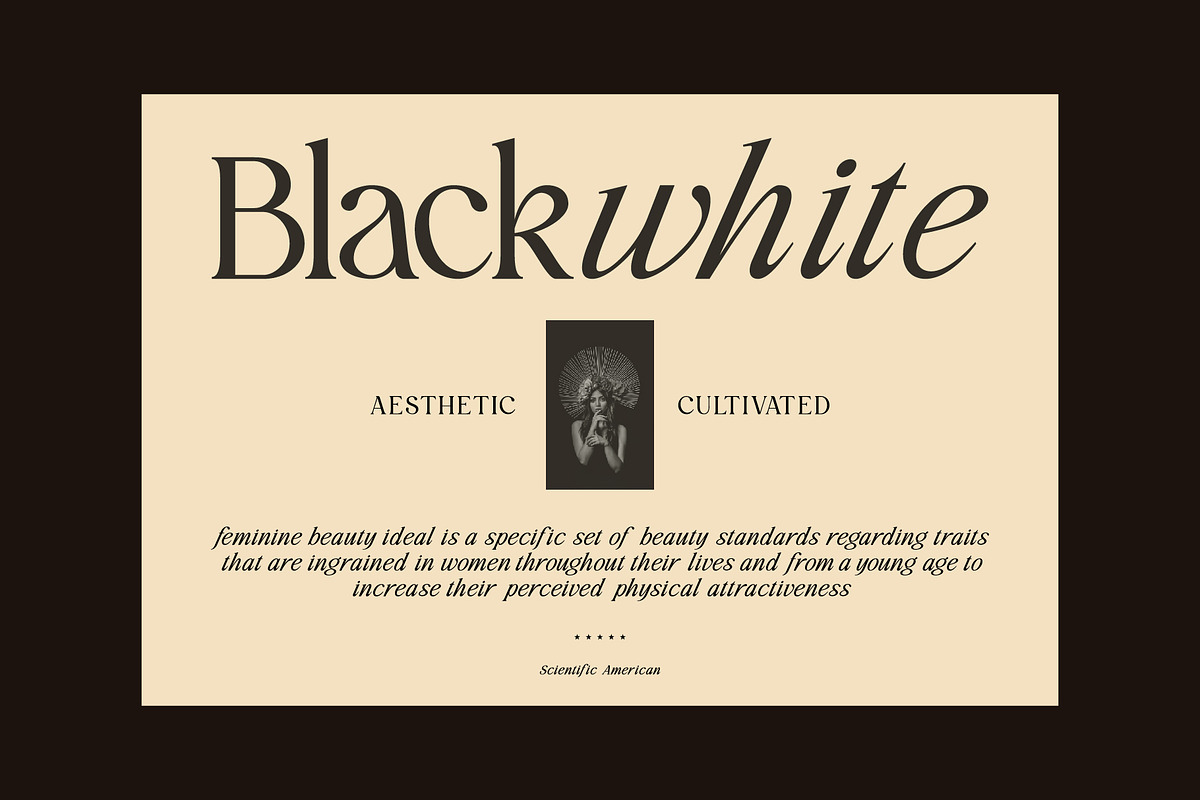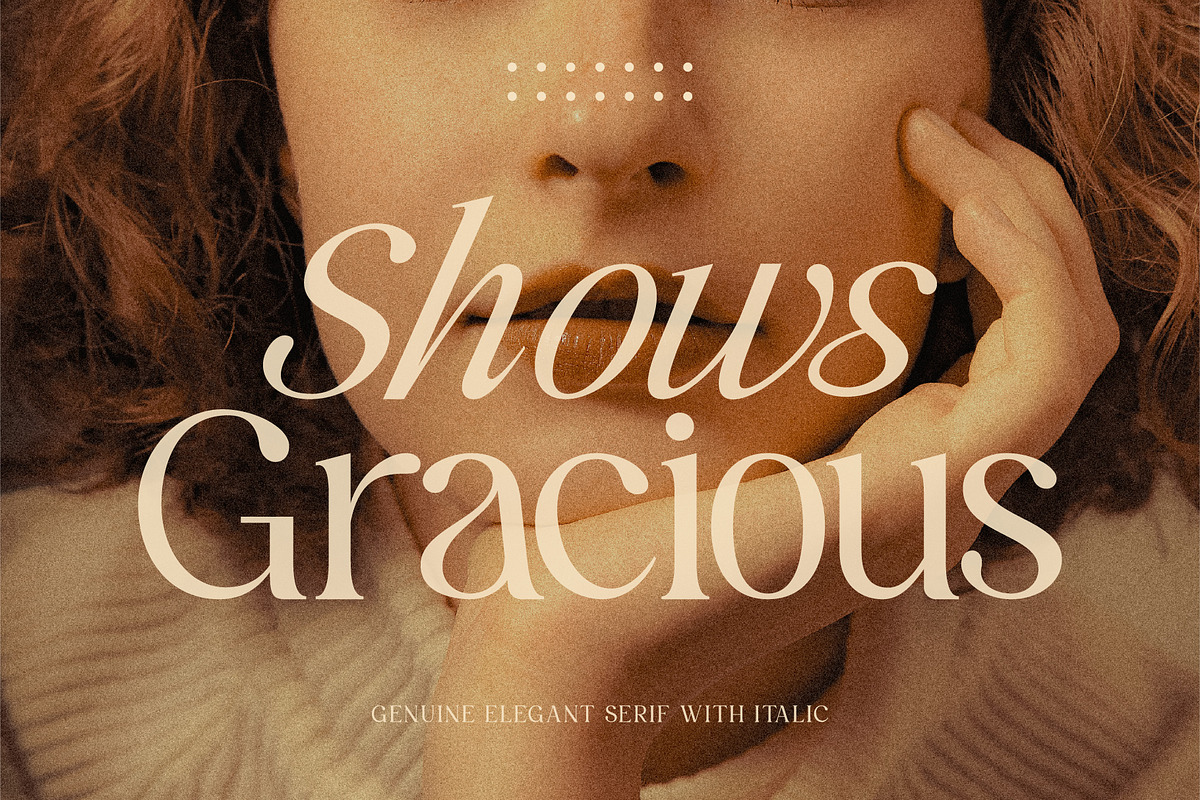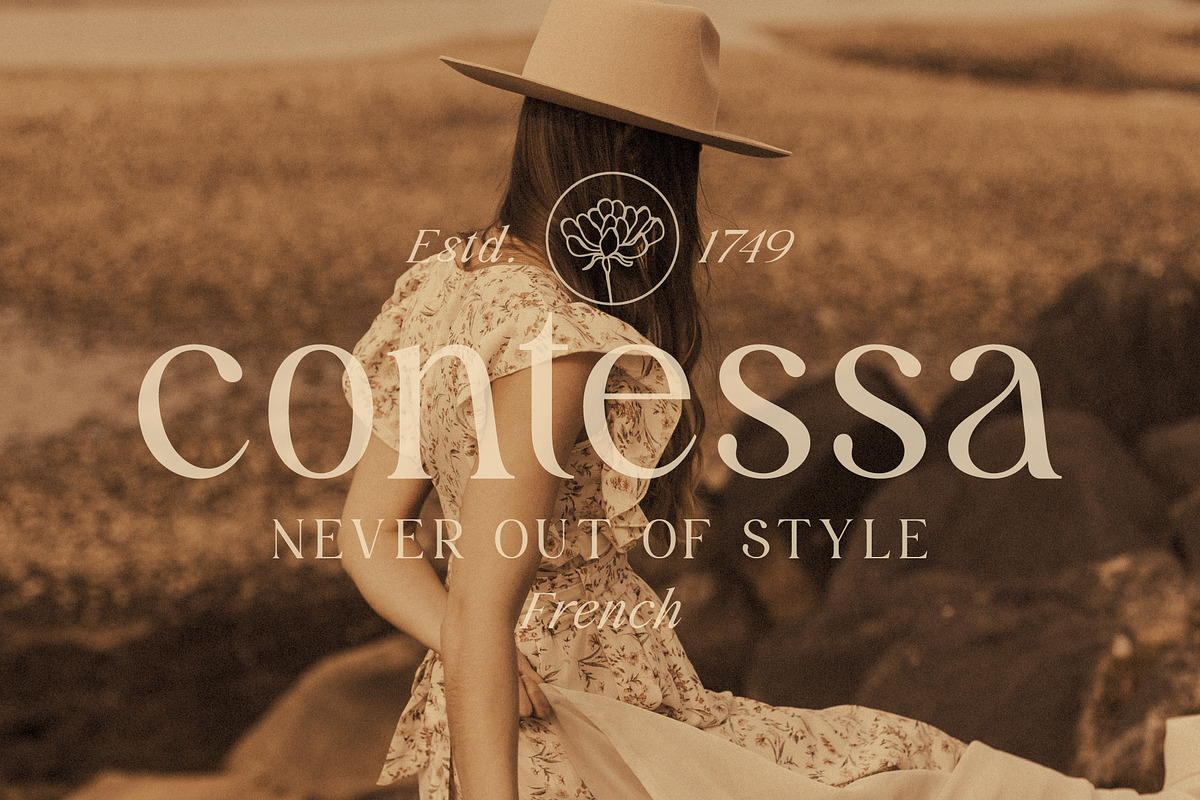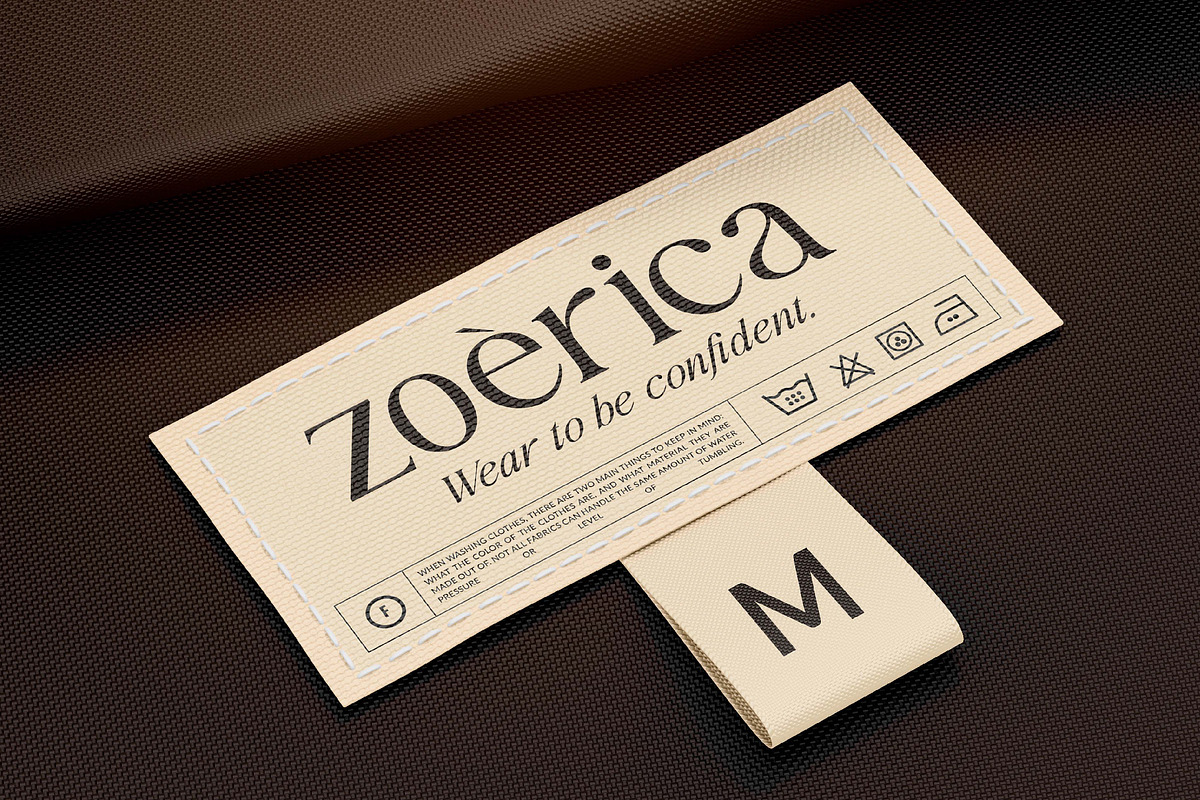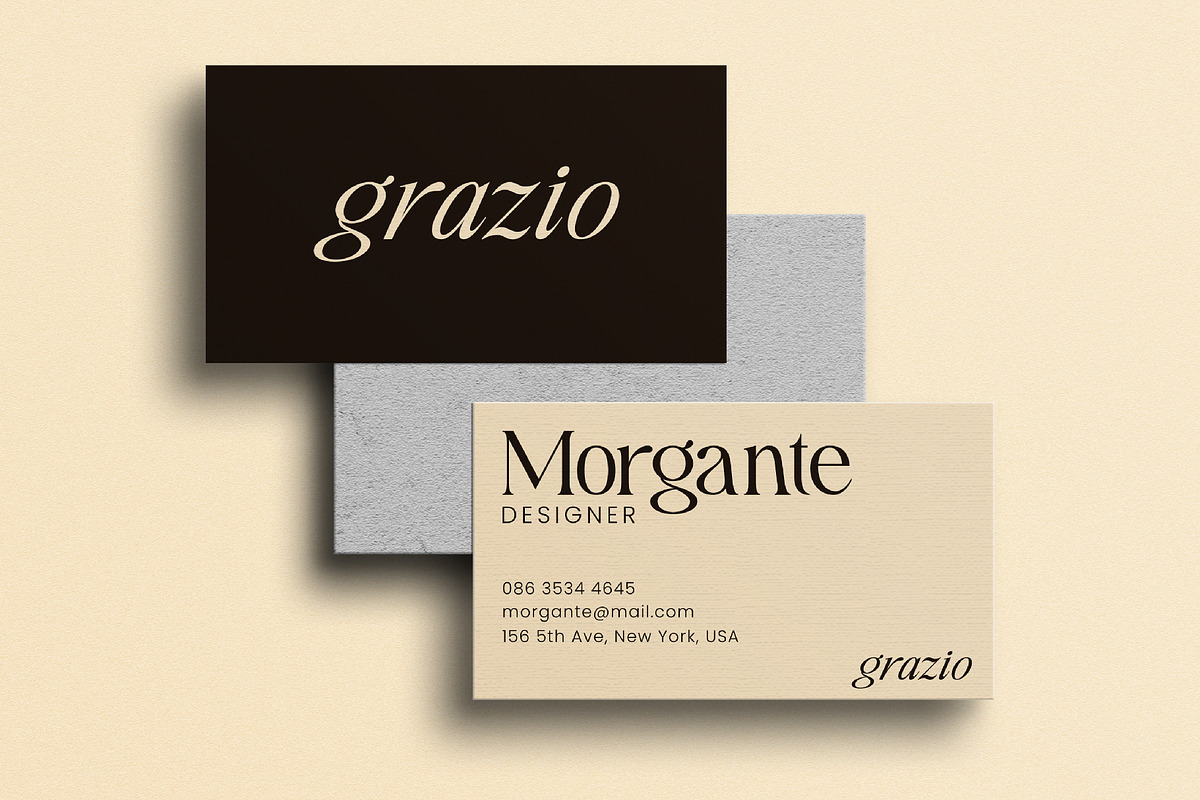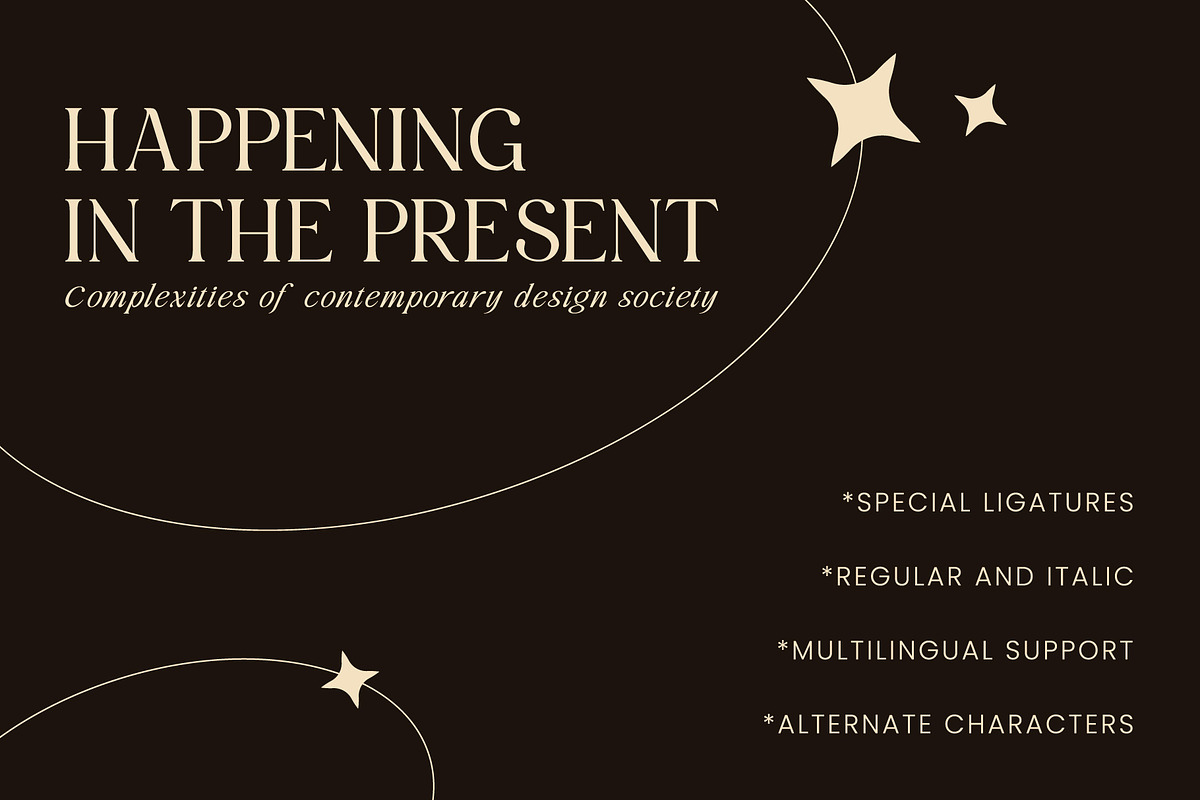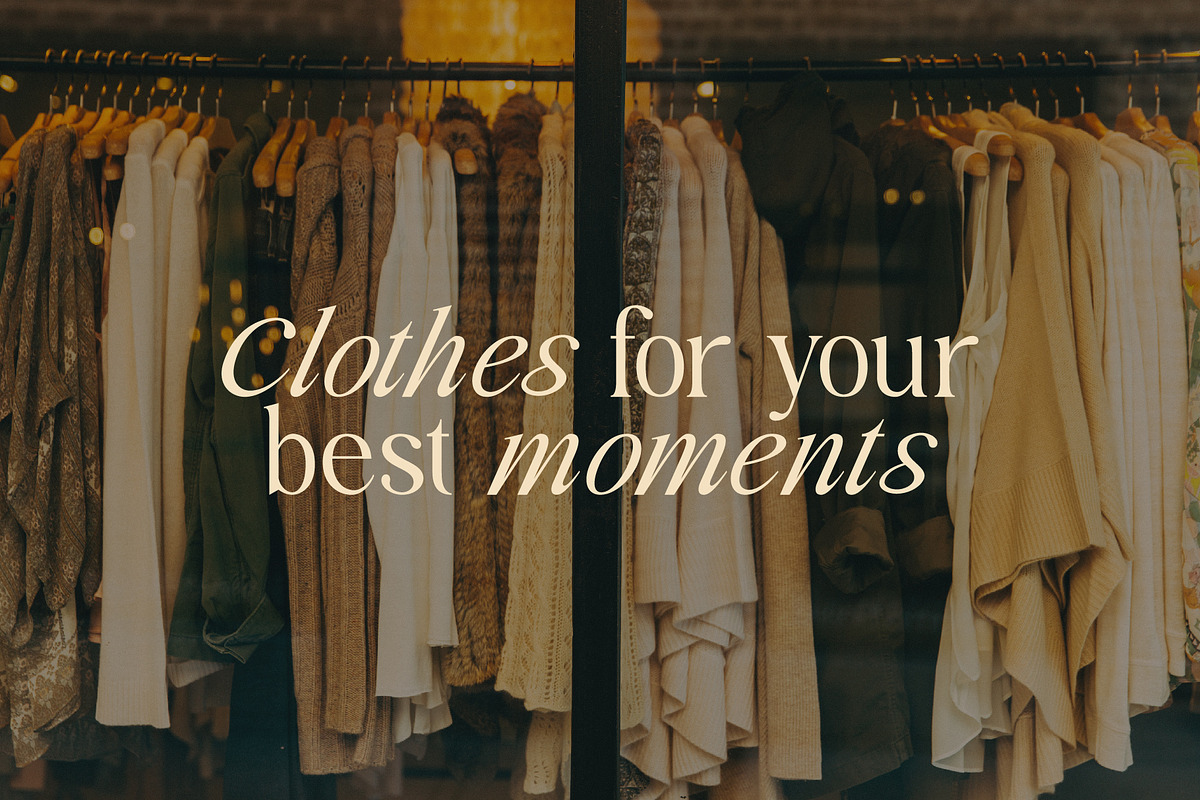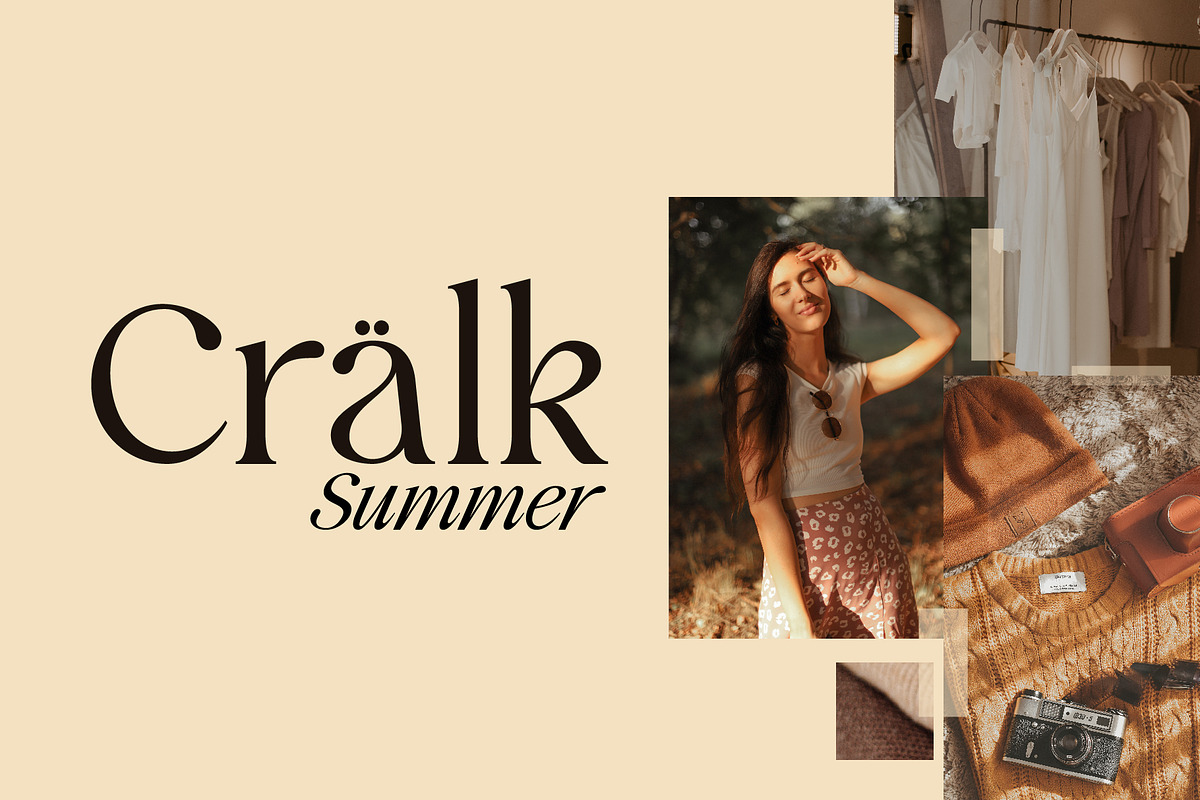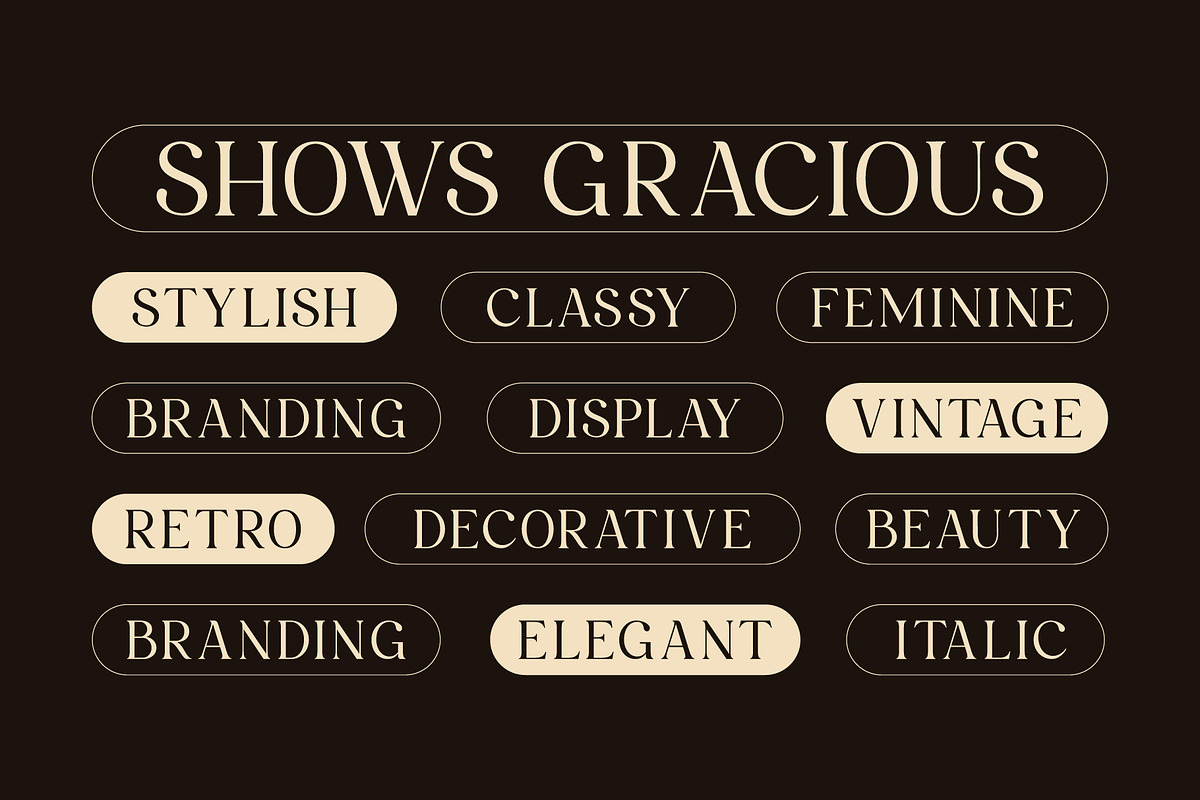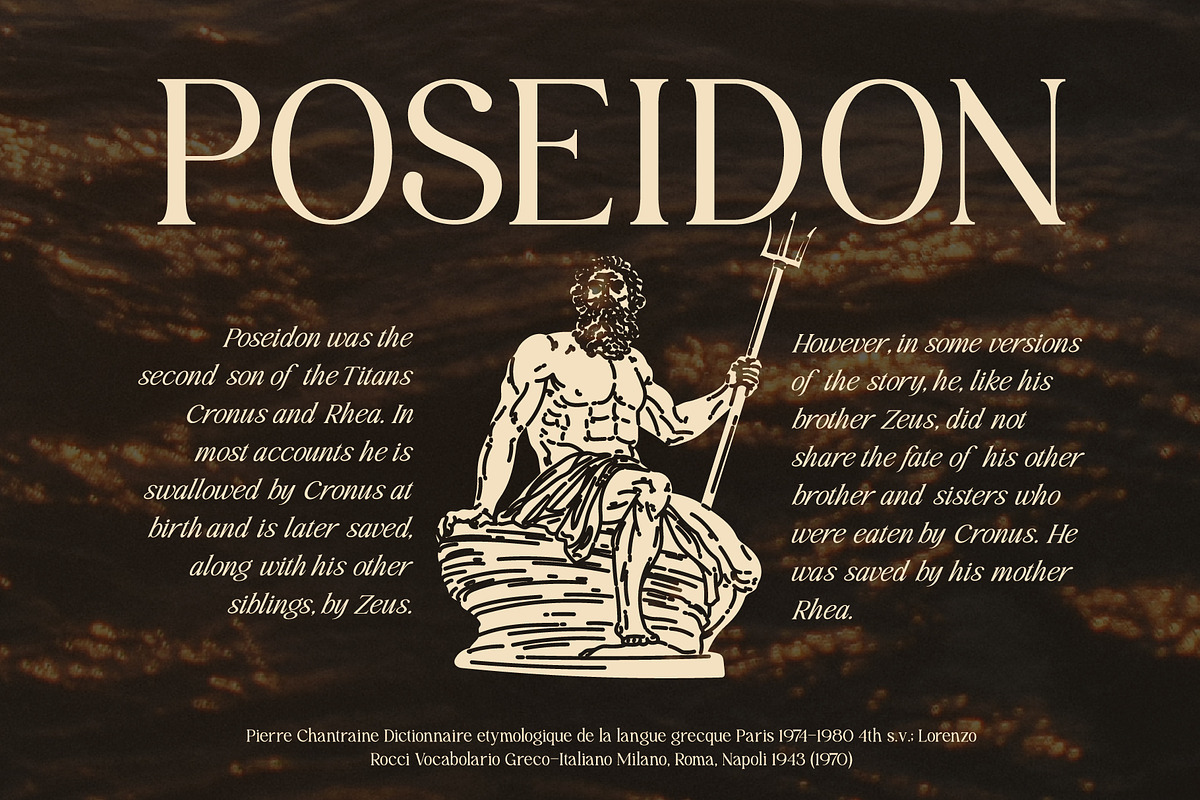
Shows Gracious | Regular + Italic
Shows Gracious is taken from the word luxury that underlies this font, a classic theme with a subtle touch in every node of the alphabet, although classic, this font is highly recommended for designers, because of the classic design trend but not too far from ancient when used today. has several ligatures and alternatives that can add to the uniqueness of your design, very suitable for use as logos, branding, headlines, magazines, wedding cards, and others.